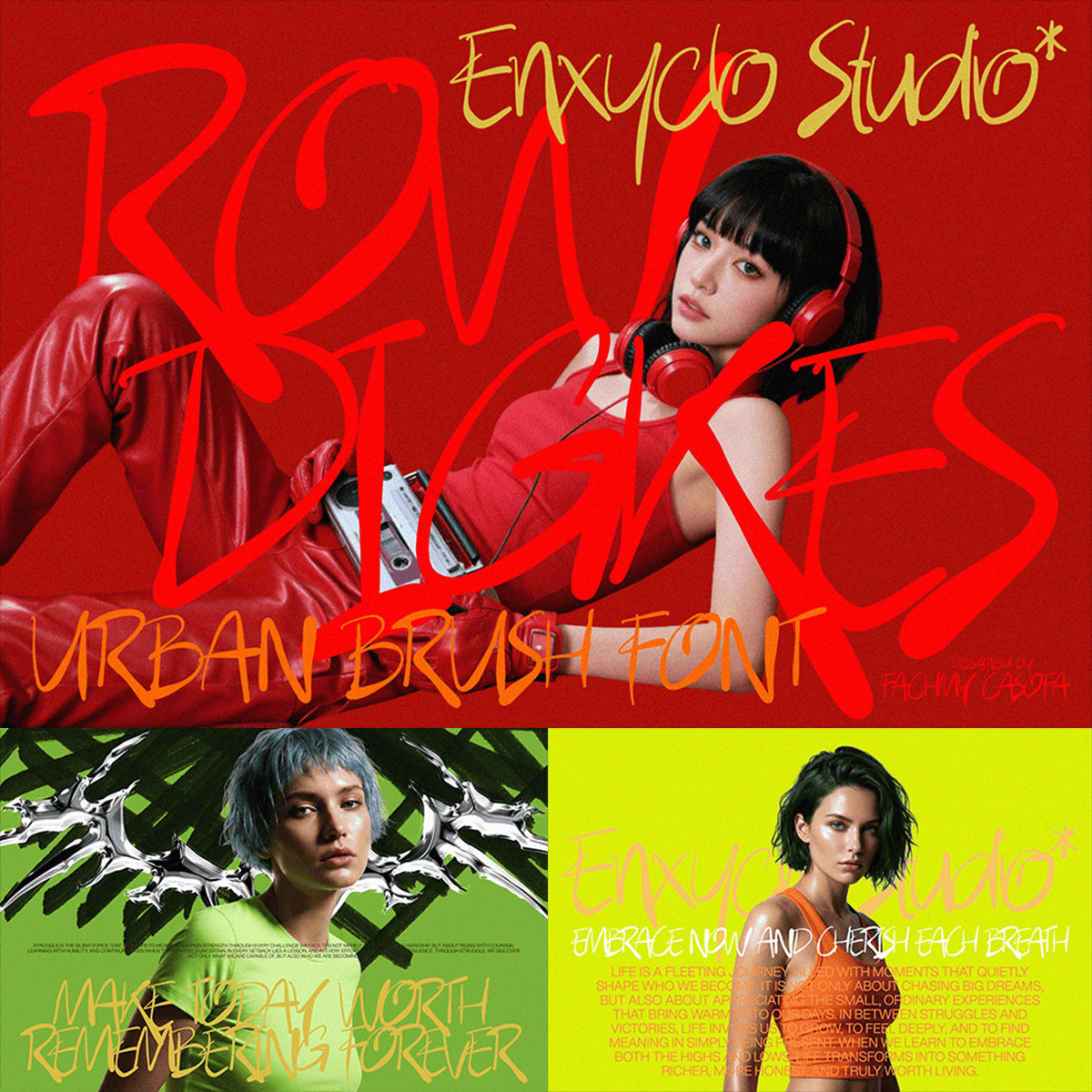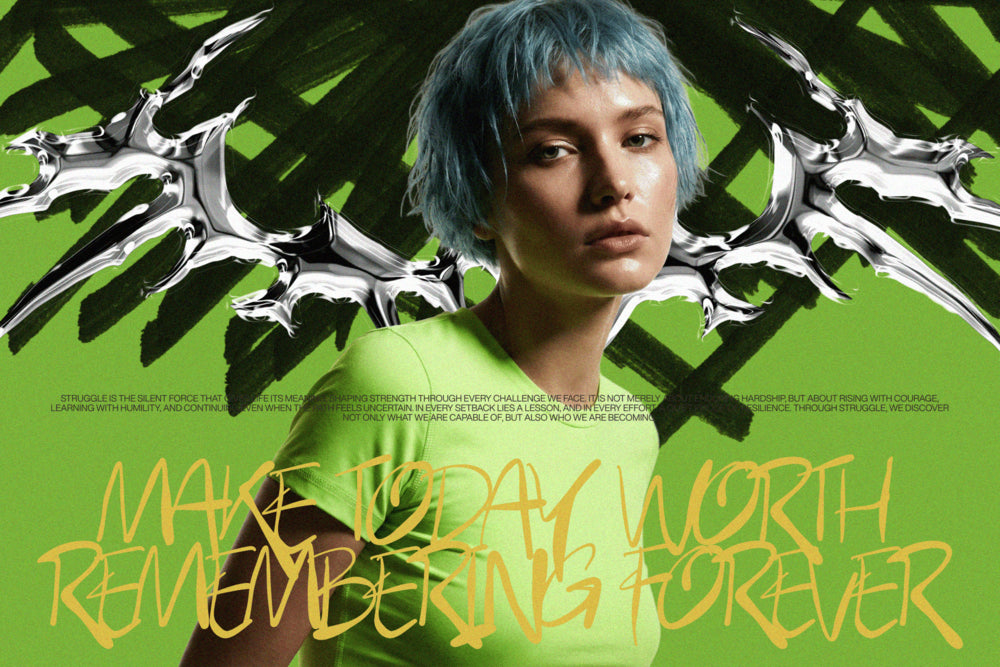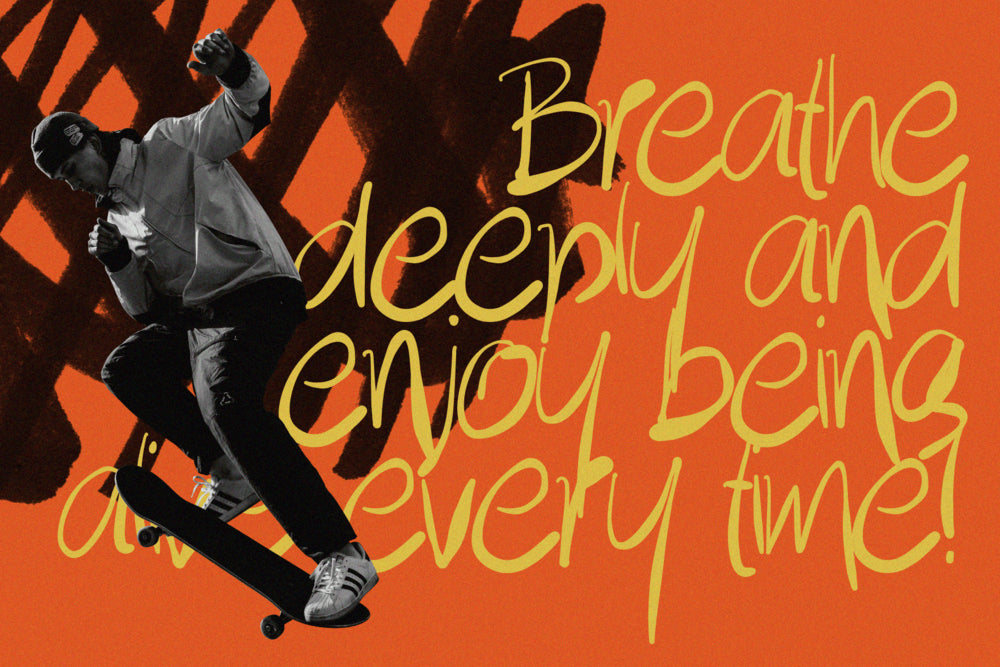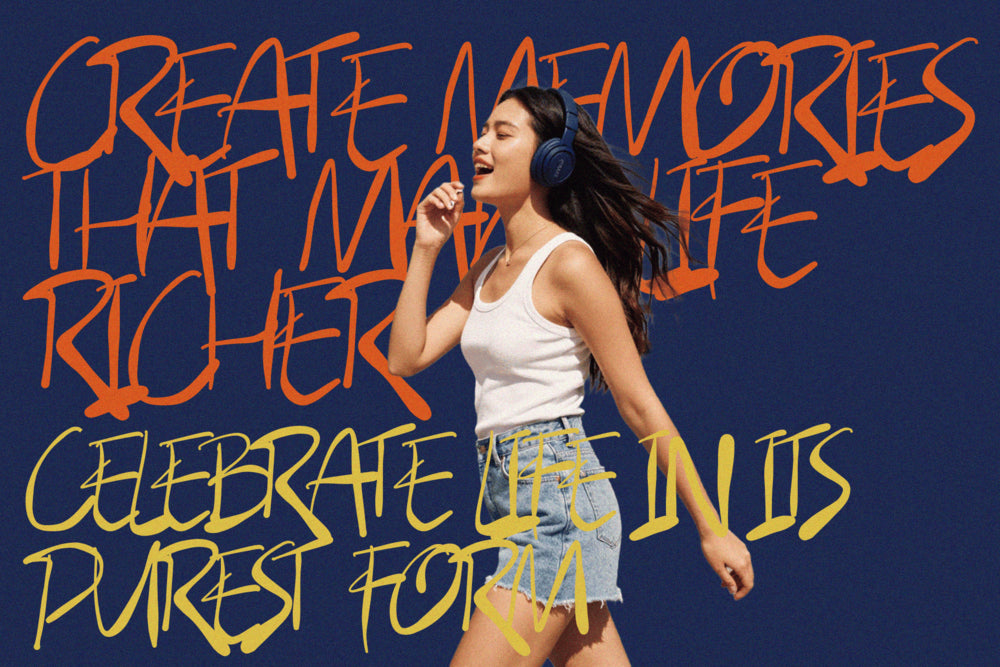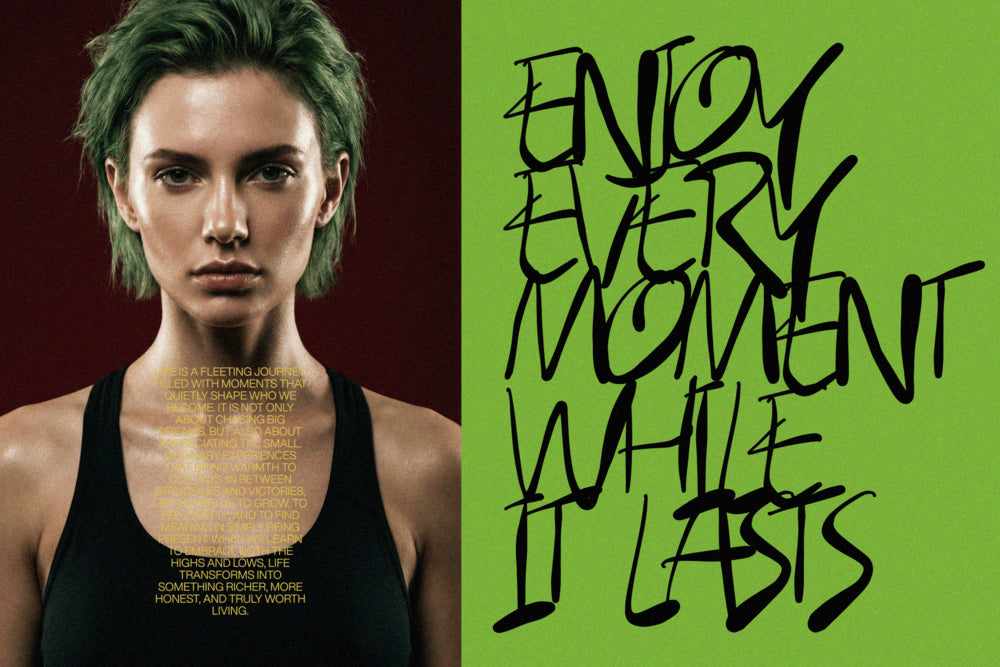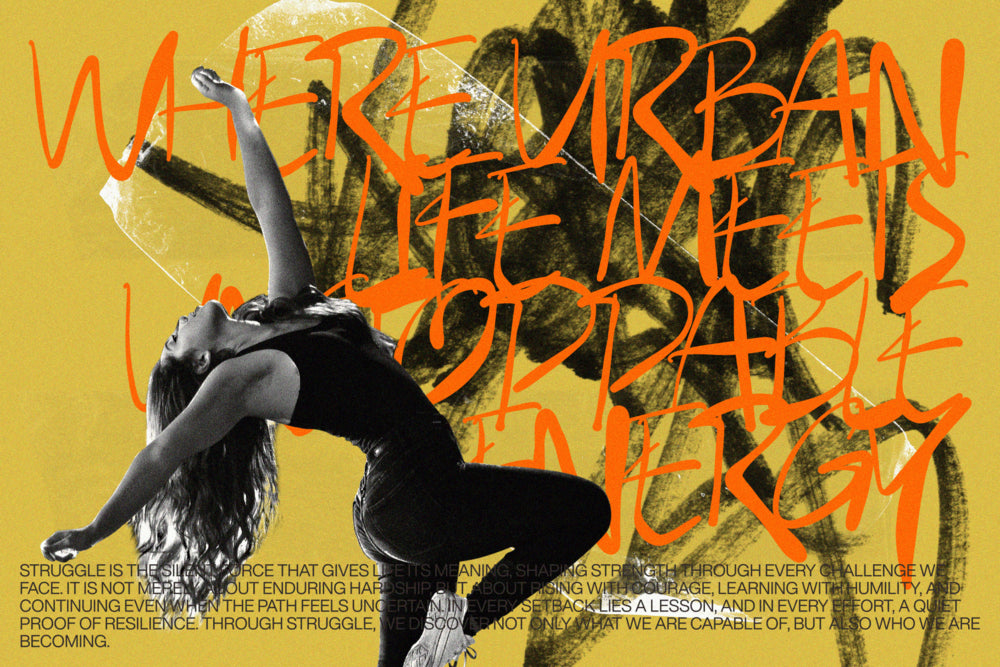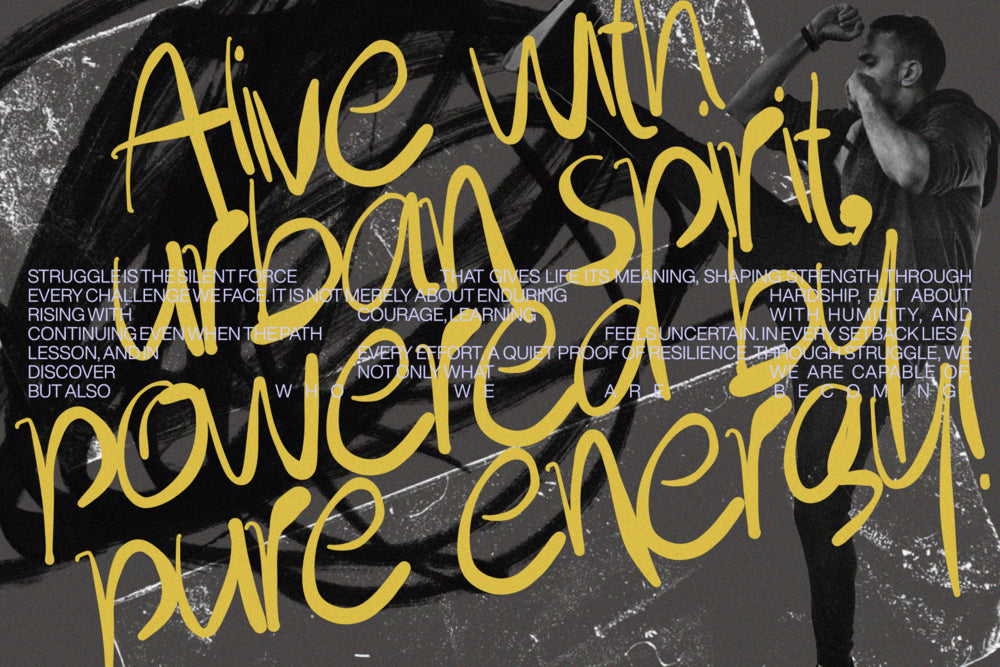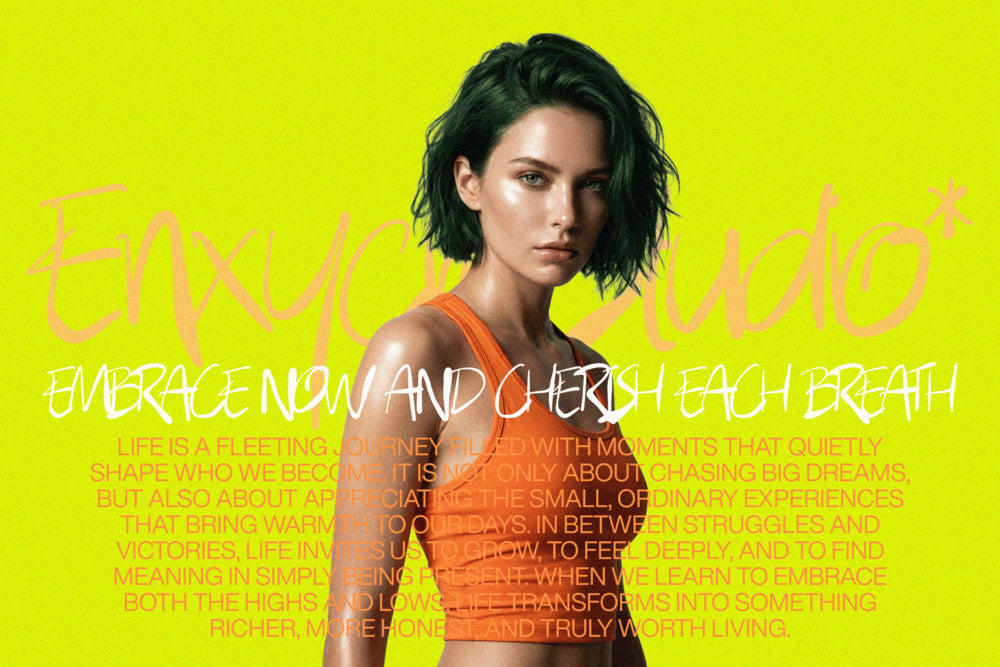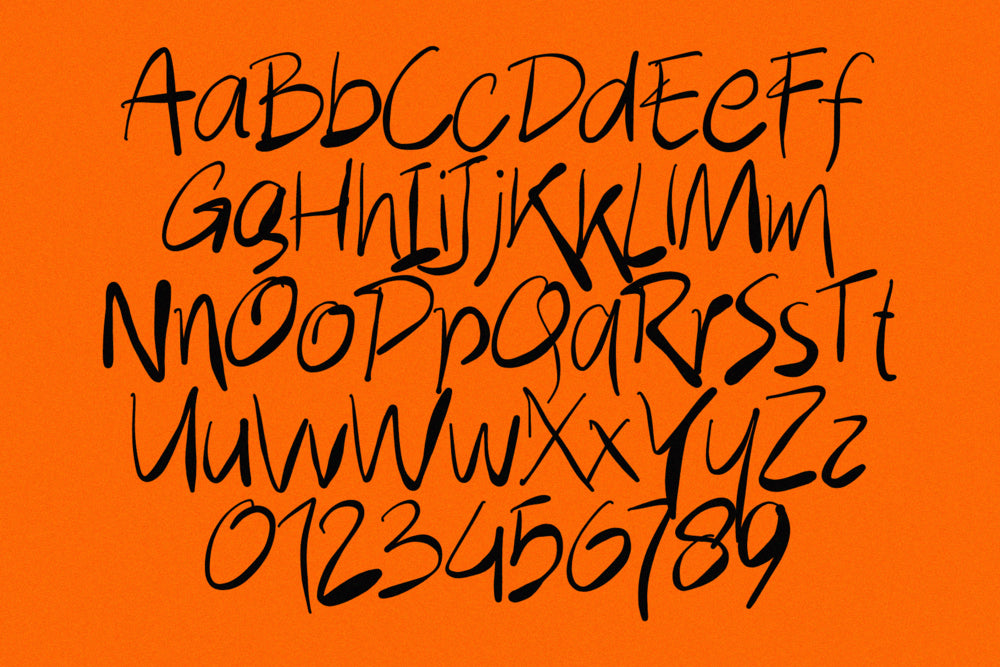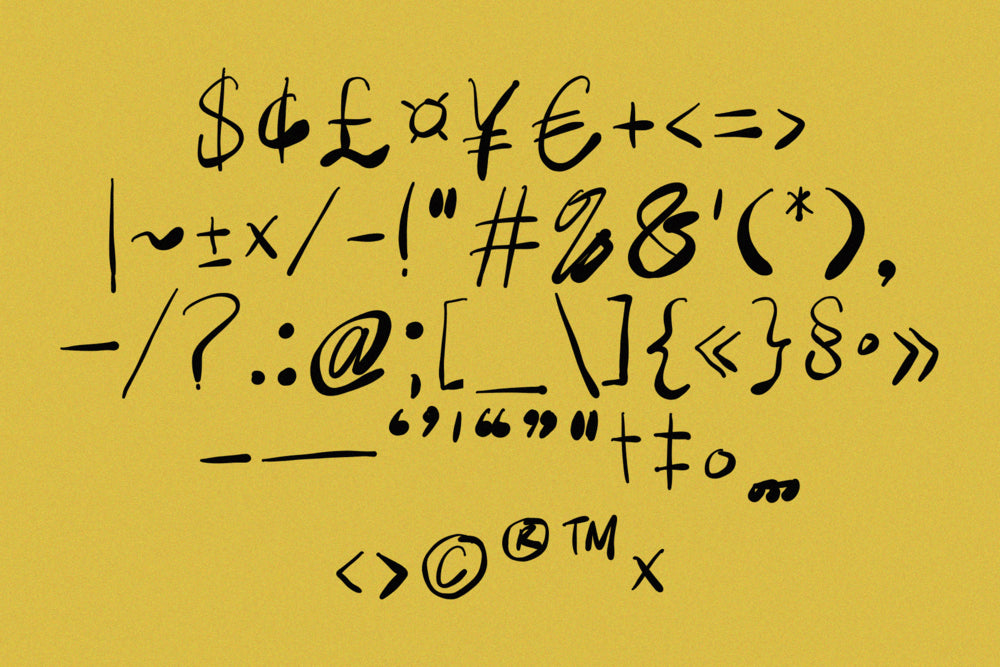
ROWDIGKES — Urban Handwritten Brush Font
ROWDIGKES is a handwritten urban brush font built with raw attitude and untamed energy. Inspired by street culture, graffiti, and the gritty textures of grunge design, this typeface delivers a dirty, edgy aesthetic that feels bold, modern, and unapologetically expressive. Every stroke carries motion and rhythm—like it was painted fast, loud, and with purpose.
Designed to stand out in headlines, ROWDIGKES brings a strong visual punch to creative work. Its rough brush texture and handcrafted feel make it perfect for album covers, band visuals, festivals, and event promotions where energy and personality matter most. The font captures that rebellious urban vibe—raw, imperfect, and full of life.
Whether you're building a music identity, designing a poster, or creating high-impact graphics, ROWDIGKES injects bold character into every composition. It’s not just a font—it’s a statement of energy, movement, and creative freedom.
Uppercase & Lowercase Letters
Numeral, Punctuation Marks, Currencies & Symbol Set
ROWDIGKES is an urban handwritten brush font that features a raw, edgy aesthetic inspired by street culture and graffiti. It includes uppercase and lowercase letters, numerals, punctuation marks, and symbols, and is available in OTF, TTF, and WOFF formats.